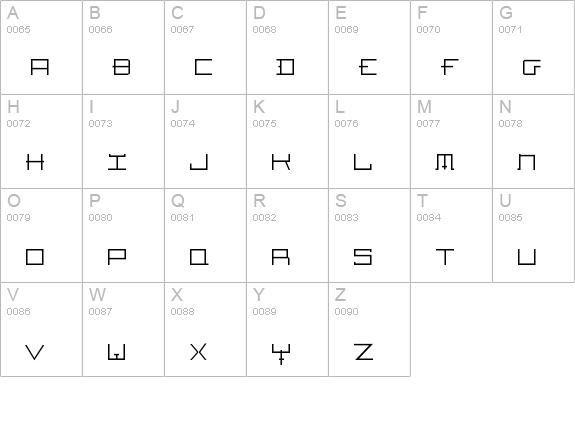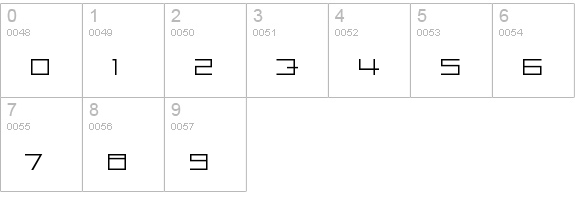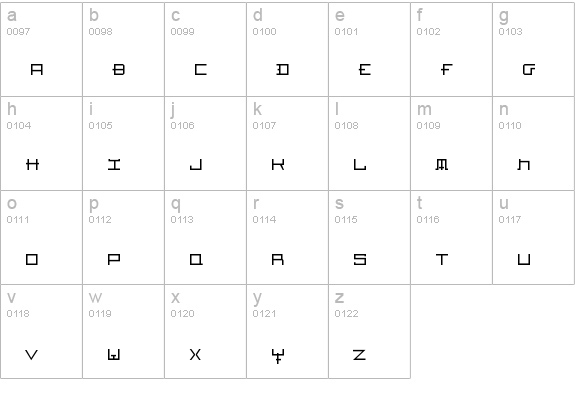
Hozenozzle Thin Font Details
Hozenozzle Thin is a delicate, low-contrast variant in the Hozenozzle typeface family \xE2\x80\x94 well suited to fashion editorial, minimal branding, and high-contrast display.
Hozenozzle Thin font is a sleek and modern typeface that exudes elegance and sophistication. With its thin and graceful letterforms, this font is perfect for adding a touch of refinement to any design project. Whether you're creating invitations, branding materials, or editorial layouts, Hozenozzle Thin font will elevate your work to new heights. Best of all, Hozenozzle Thin font is completely free to download at FontsMarket.com. You can easily access this exquisite font and enhance your designs without any cost. Don't miss out on the opportunity to add a touch of class to your projects with Hozenozzle Thin font – download it today and let your creativity shine!